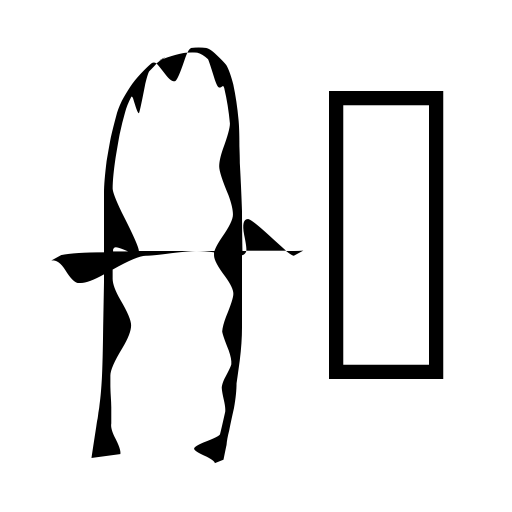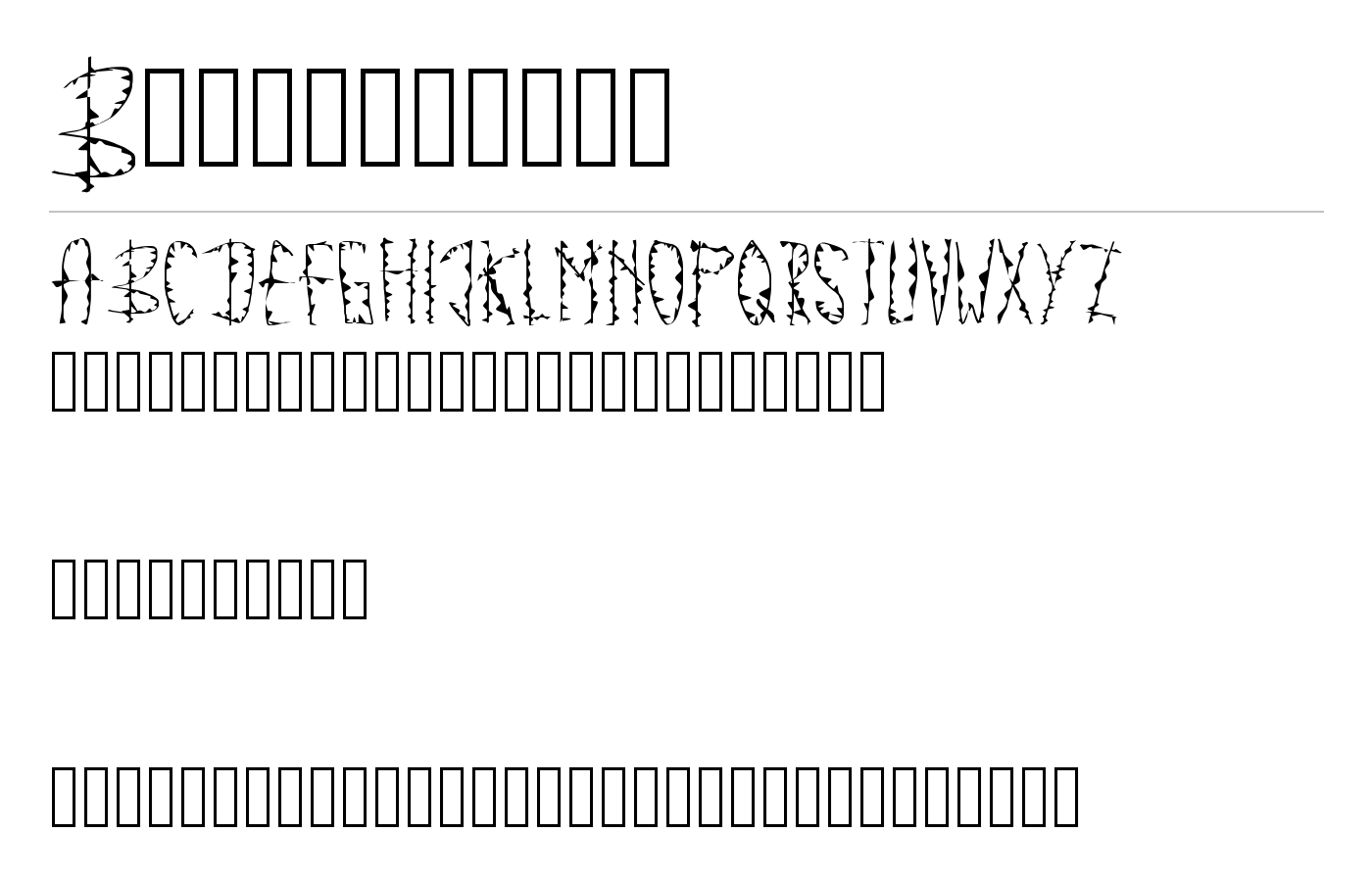
Budselement is a highly decorative serif typeface with a distressed, thorny texture that gives it an edgy and dramatic flair. Its narrow letterforms and sharp, irregular strokes evoke a dark, gothic mood, making it perfect for bold headlines, Halloween themes, or creative projects that need a mysterious and unconventional style. This font stands out best in display settings where its unique, artistic character can shine.
Budselement Font
About Budselement Font